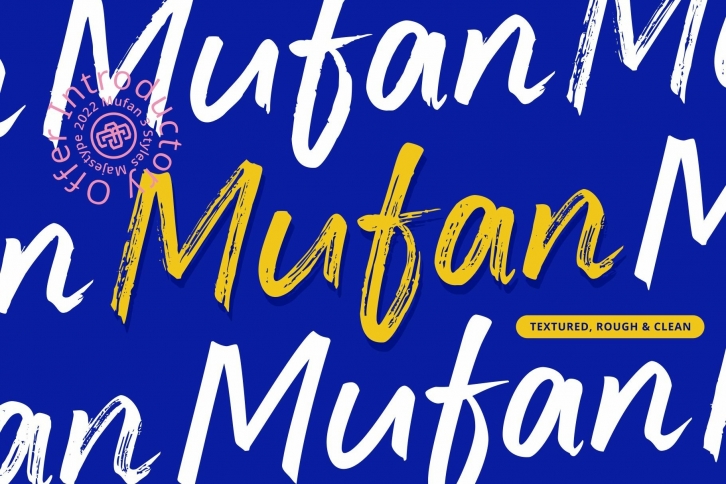
Mufan is a great font that was designed by Majestype. Imagine the amount of combinations you can create using this font! The archive is 12.13 MB and it was released on April 15, 2022. Mufan looks beautiful on wedding invitations, greeting cards, logos, posters, labels, t-shirt designs, logos, business cards and is perfect for use in ink or watercolor works, fashion, magazines, packaging and food menus, children's books and more!